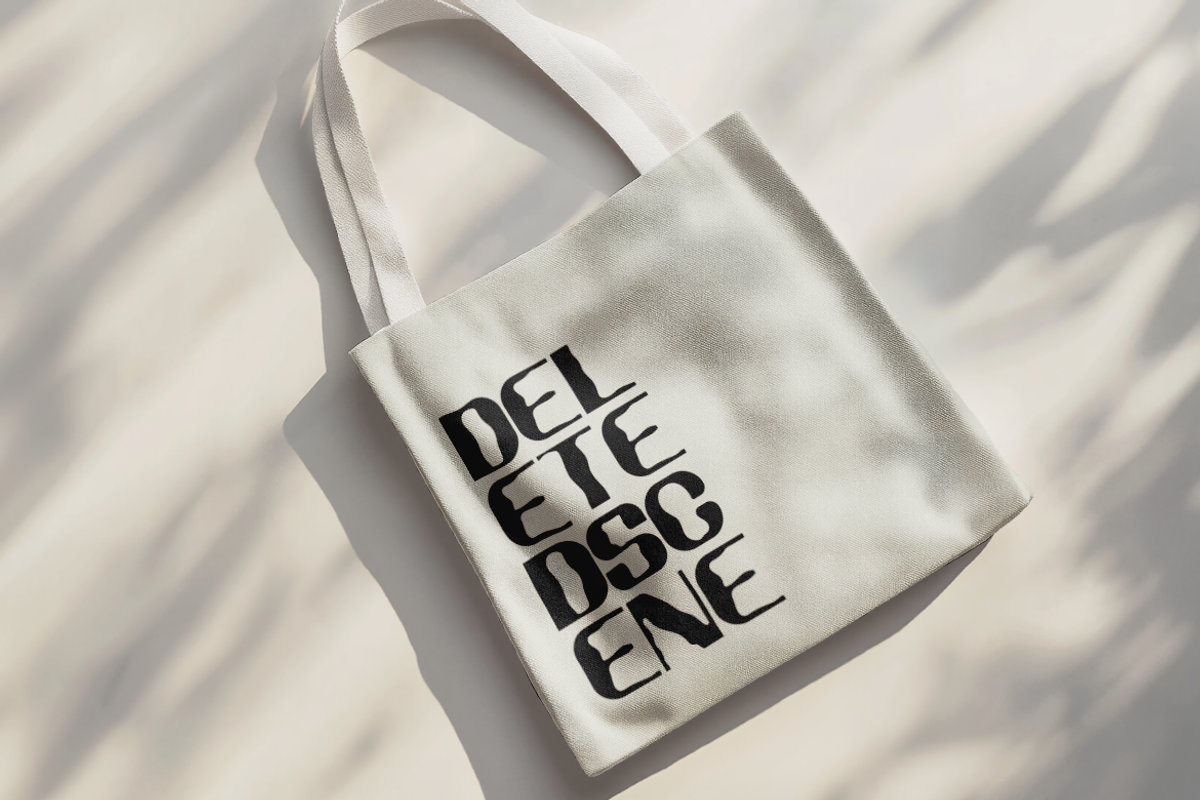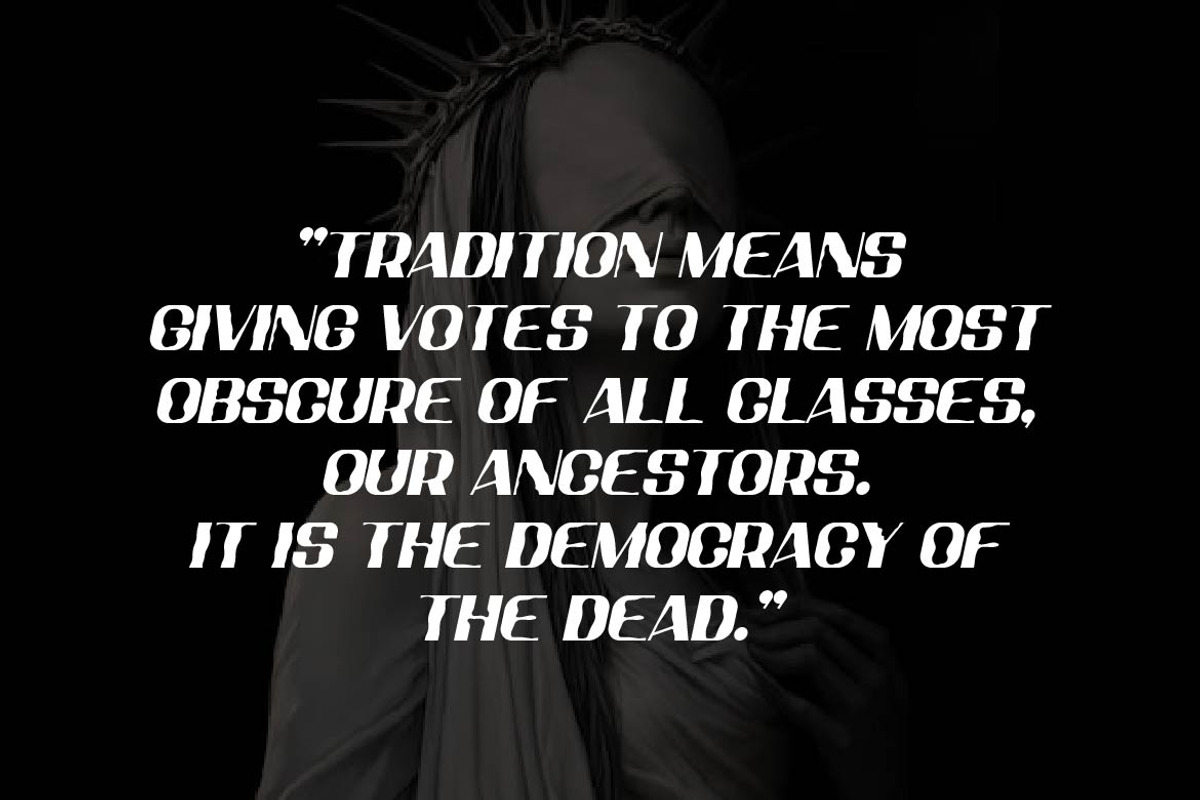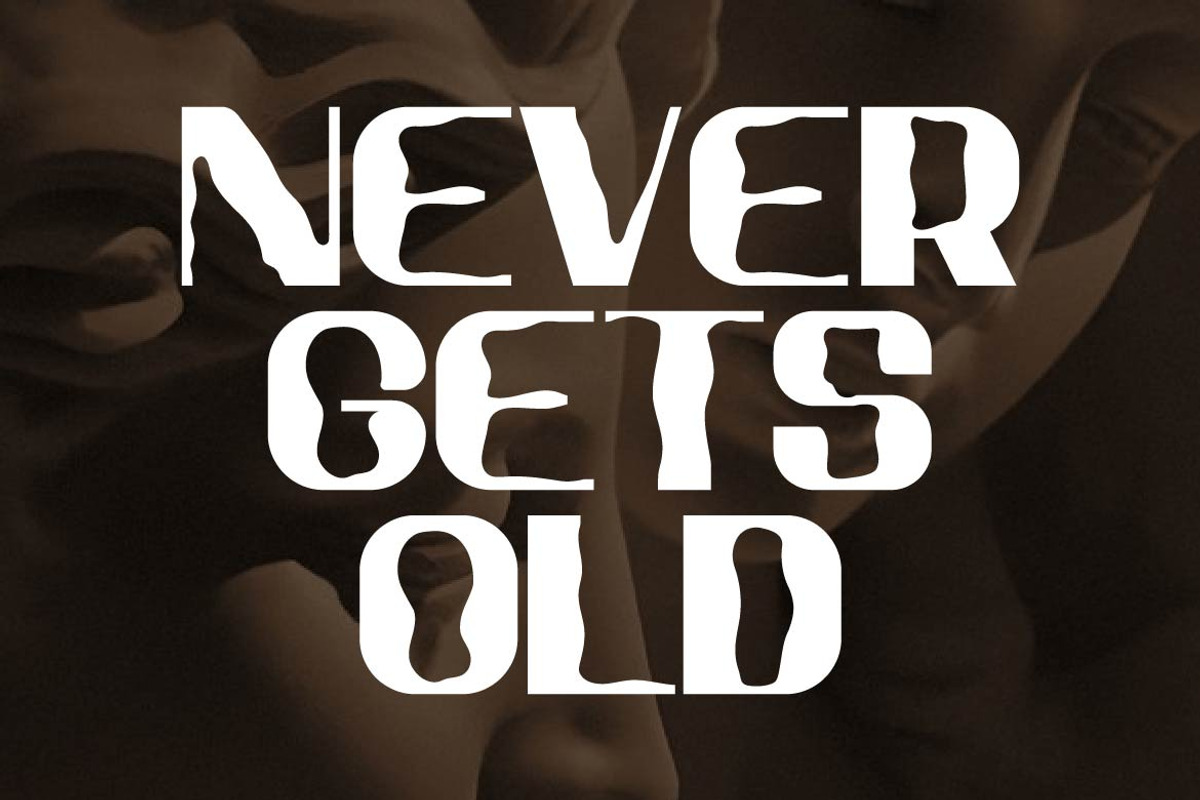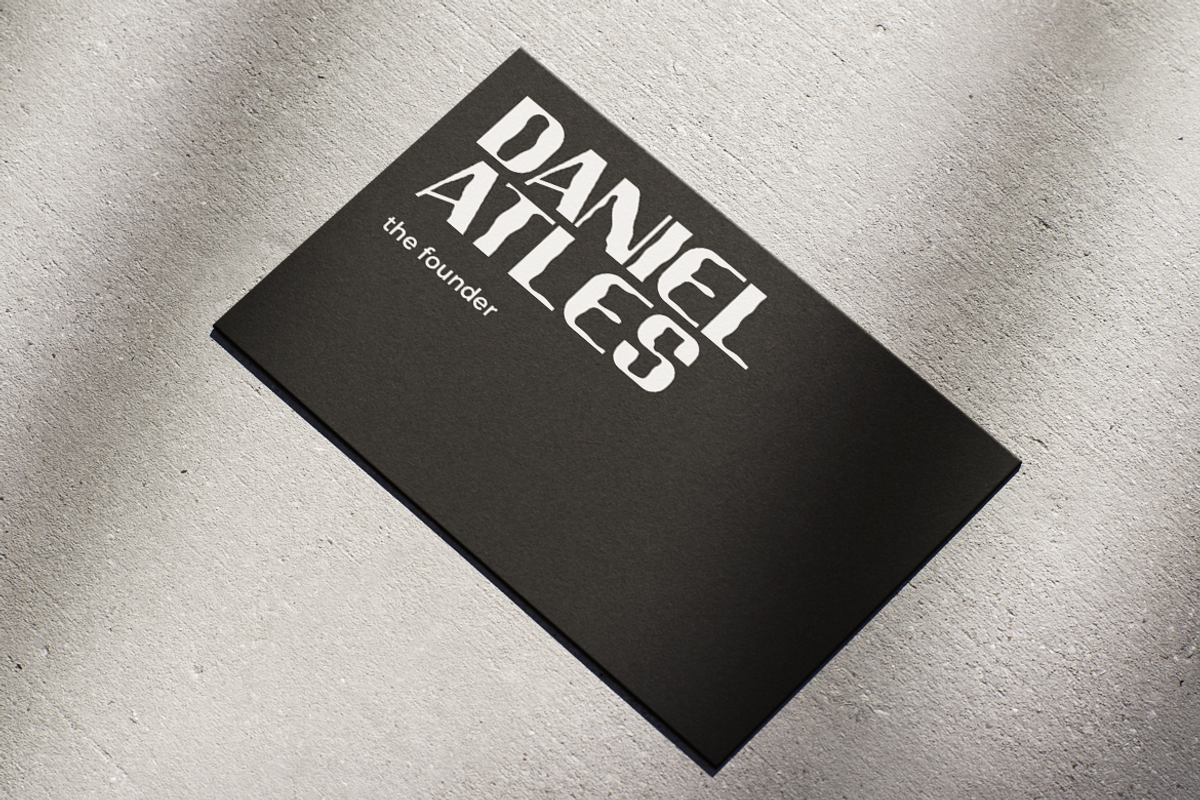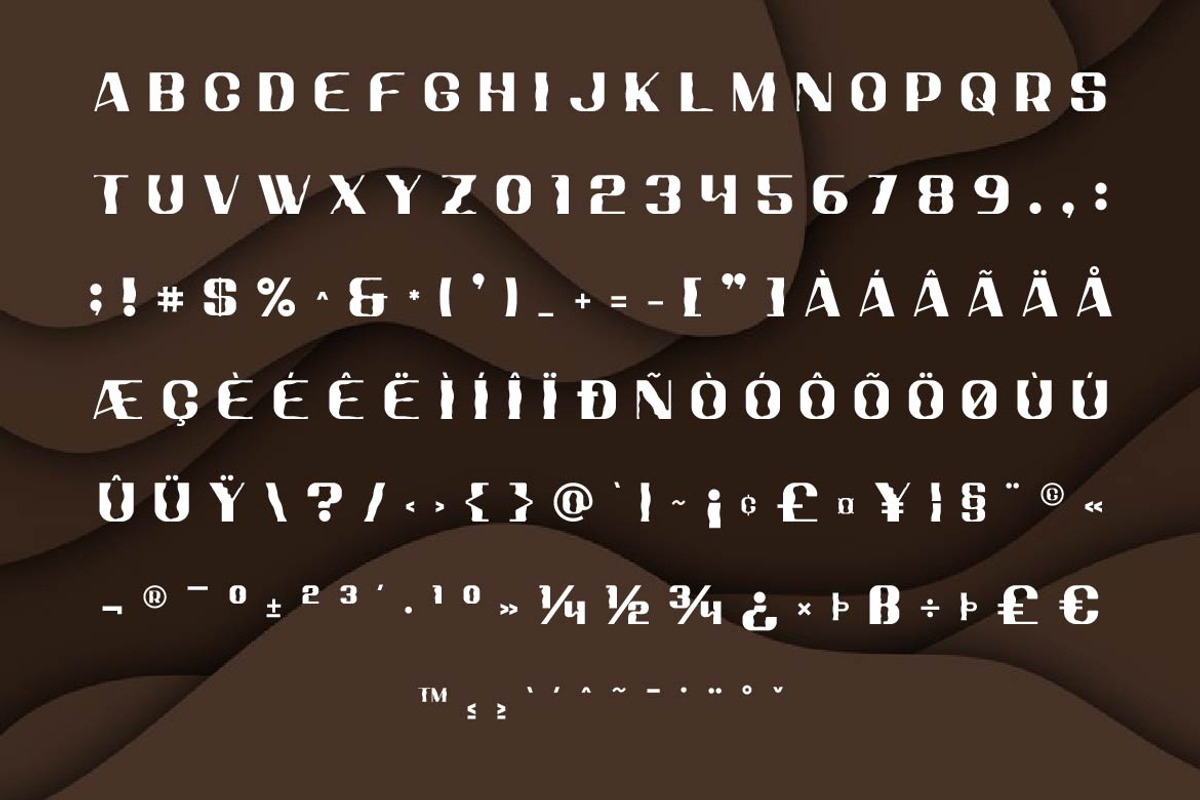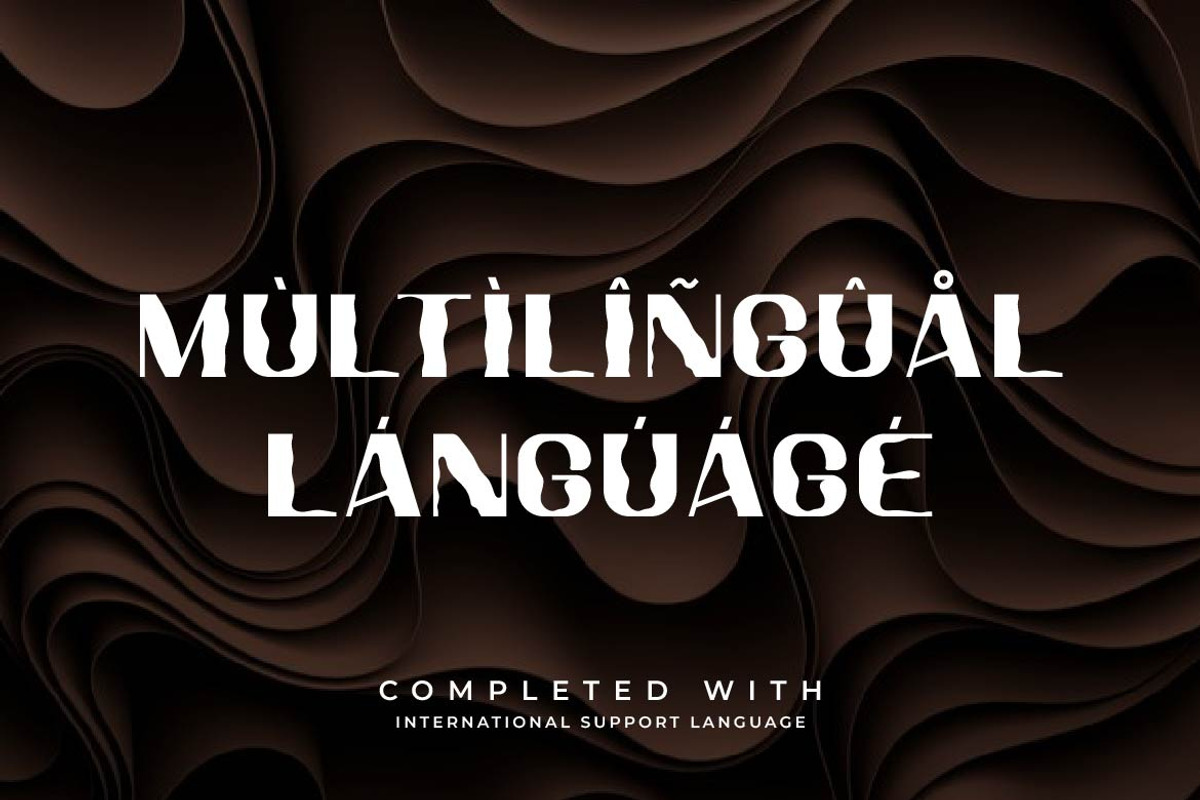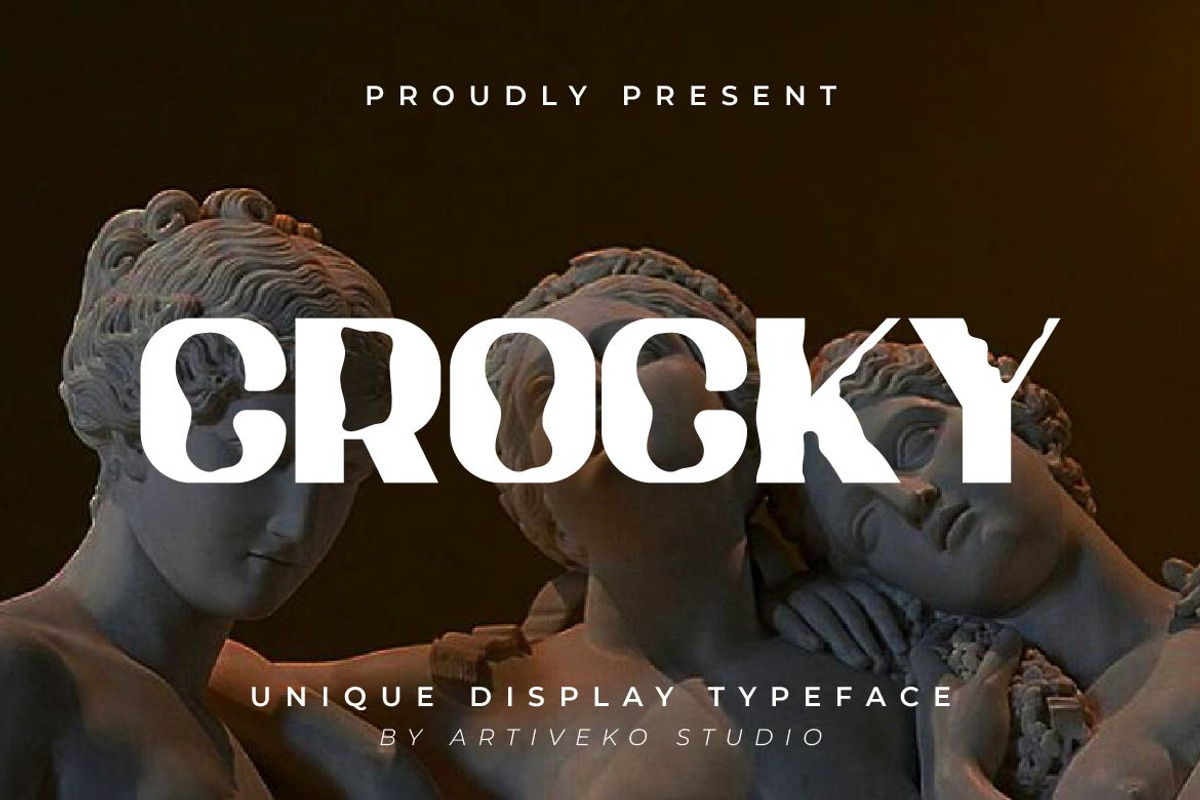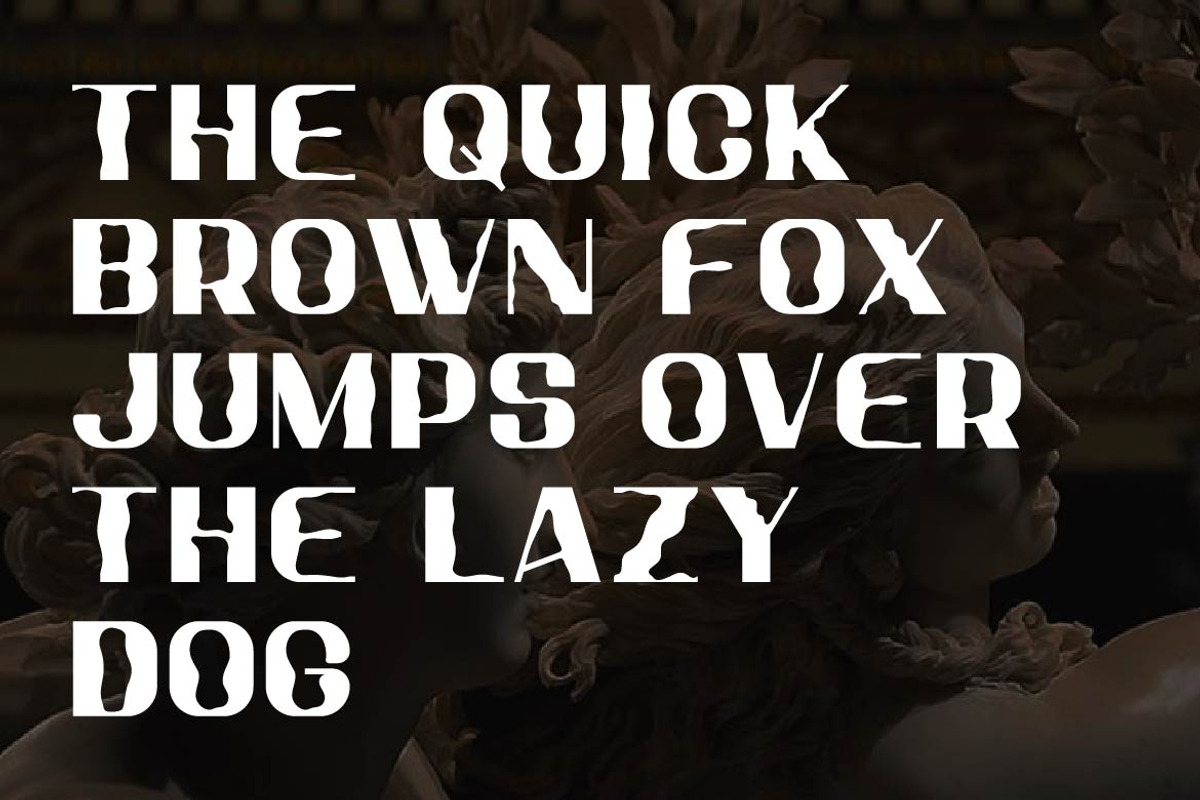
Crocky – Creative Display Font
Crocky is a creative display typeface designed for brands that want to be instantly recognizable. With bold personality, expressive letterforms, and contemporary styling, Crocky transforms ordinary headlines into memorable visual statements.
Crafted for logo design, streetwear branding, posters, packaging, merchandise, album covers, cafés, lifestyle brands, social media campaigns, and editorial headlines, Crocky delivers a distinctive balance between playful creativity and professional versatility. Its eye-catching display structure gives every composition confidence while remaining clean and highly readable.
Whether you're launching a fashion label, building a creative studio, designing product packaging, or creating viral digital content, Crocky provides the originality and visual energy needed to make your brand unforgettable.
Crocky isn't just a display font—it's a bold creative identity built for brands that love to stand out.
Ton of glyphs